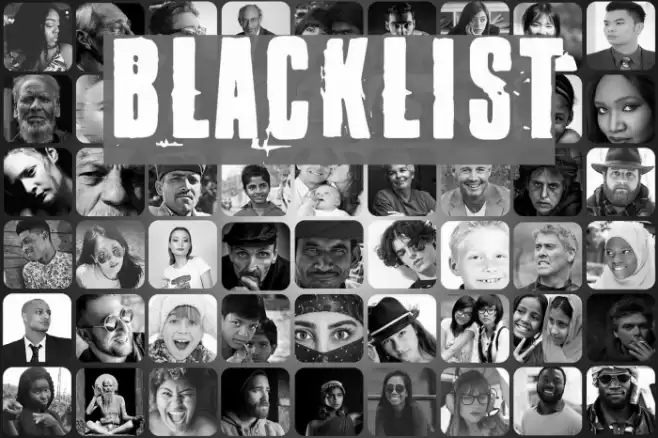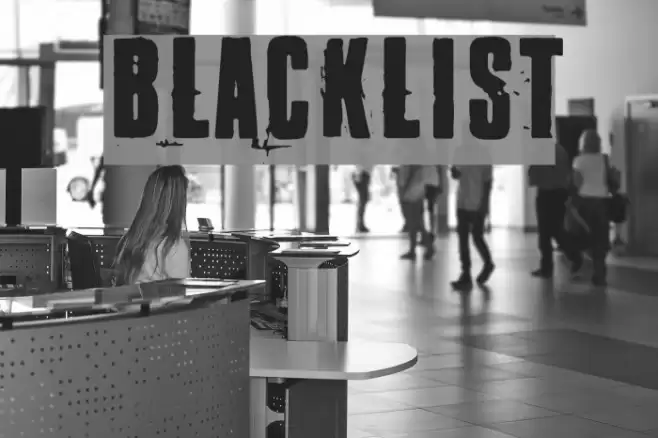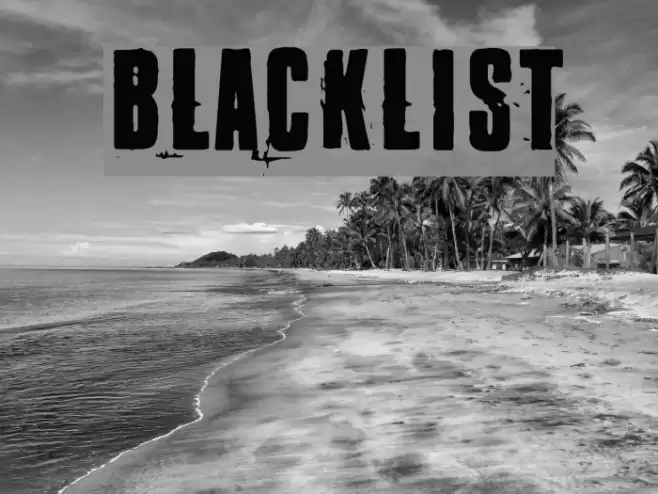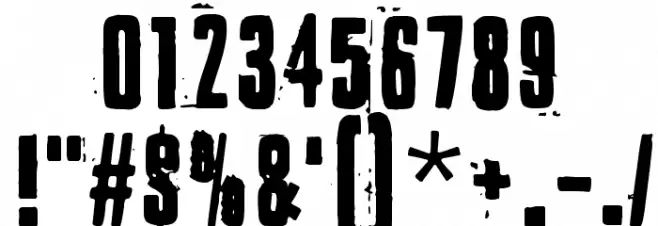
Blacklist Font
This font features a bold, distressed style with a rugged, textured appearance that mimics the look of aged, worn-out print. The characters are thick and blocky, with irregular edges that give them a hand-crafted, vintage feel. The uppercase and lowercase letters maintain a consistent weight, while the numbers and special characters follow the same distressed aesthetic. This font's unique style is reminiscent of old posters or signage, making it ideal for projects that require a touch of nostalgia or a gritty, urban vibe.
A bold, distressed font with a rugged, vintage appearance from Uncategorized fonts.
- Proposed Projects: Ideal for posters, album covers, branding, and any design needing a vintage or gritty look.
- Overall Style: Vintage